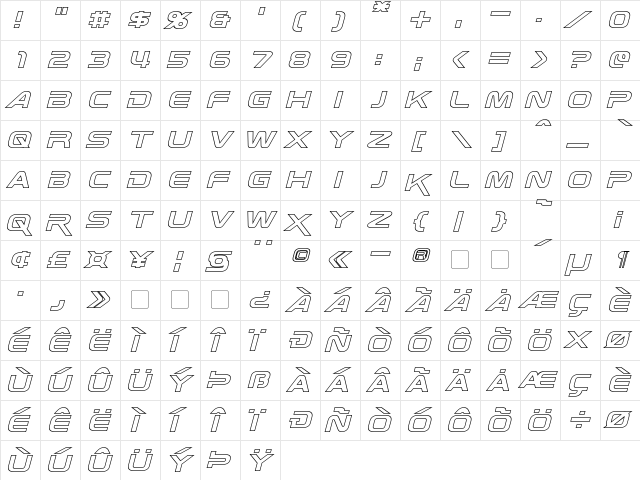
Zebulon Hollow Italic
| Designer | Neale Davidson |
Design Context for Zebulon Hollow Typeface
Zebulon Hollow offers clean, dependable letterforms without strong stylistic allegiance, making it a practical choice for designers who need flexibility. The dynamic lean of this cut emphasises speed and emphasis in any layout.
Pro Tip: Use Zebulon Hollow for emphasis, pull quotes, and subheadings where its slanted energy can add rhythm to the layout.